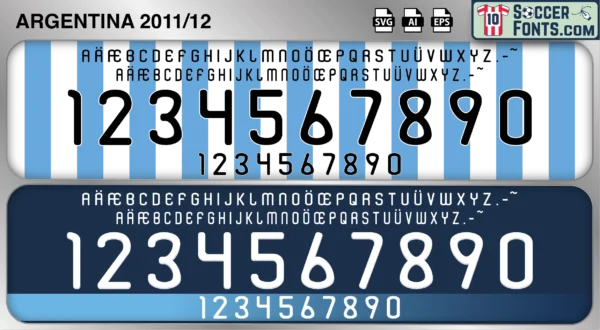
Argentina 2011-12 Font
The Argentina 2011-12 font is an editable soccer jersey lettering design in vector format inspired by the Argentina kit style used during the 2011-12 football seasons. This football font artwork is prepared for football shirt recreations, custom jersey projects, football kit mockups and sports graphic design workflows.
The 2011-12 era was shaped by Argentina’s participation in the 2011 Copa América, a tournament hosted on home soil that generated enormous expectations among supporters across the country. The squad featured Lionel Messi, Sergio Agüero, Ángel Di María, Javier Mascherano and Gonzalo Higuaín as Argentina attempted to capture a major international title in front of its own fans. Although the tournament ended earlier than expected, the period remained significant as the national team continued building around a talented generation that would later become one of the most successful in Argentine football history.
The Argentina 2011-12 font became associated with the growing maturity of Messi’s international career and the development of a squad that would remain together throughout multiple World Cup and Copa América cycles. Argentina shirts from this era remain especially recognizable because of their connection with the home Copa América tournament and the emergence of a strong core of players entering their peak years. The Argentina 2011-12 font reflects an important stage in the evolution of modern Argentine football, bridging the gap between earlier rebuilding years and the major international successes that would eventually follow.